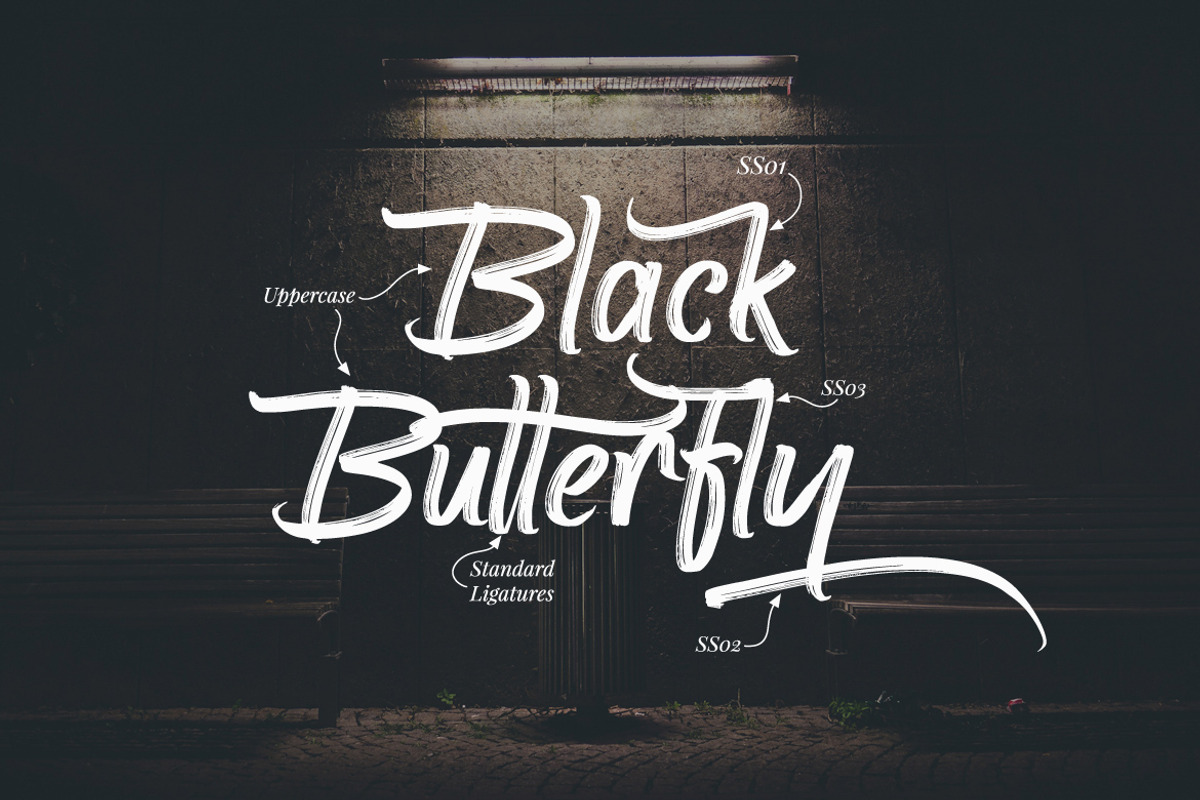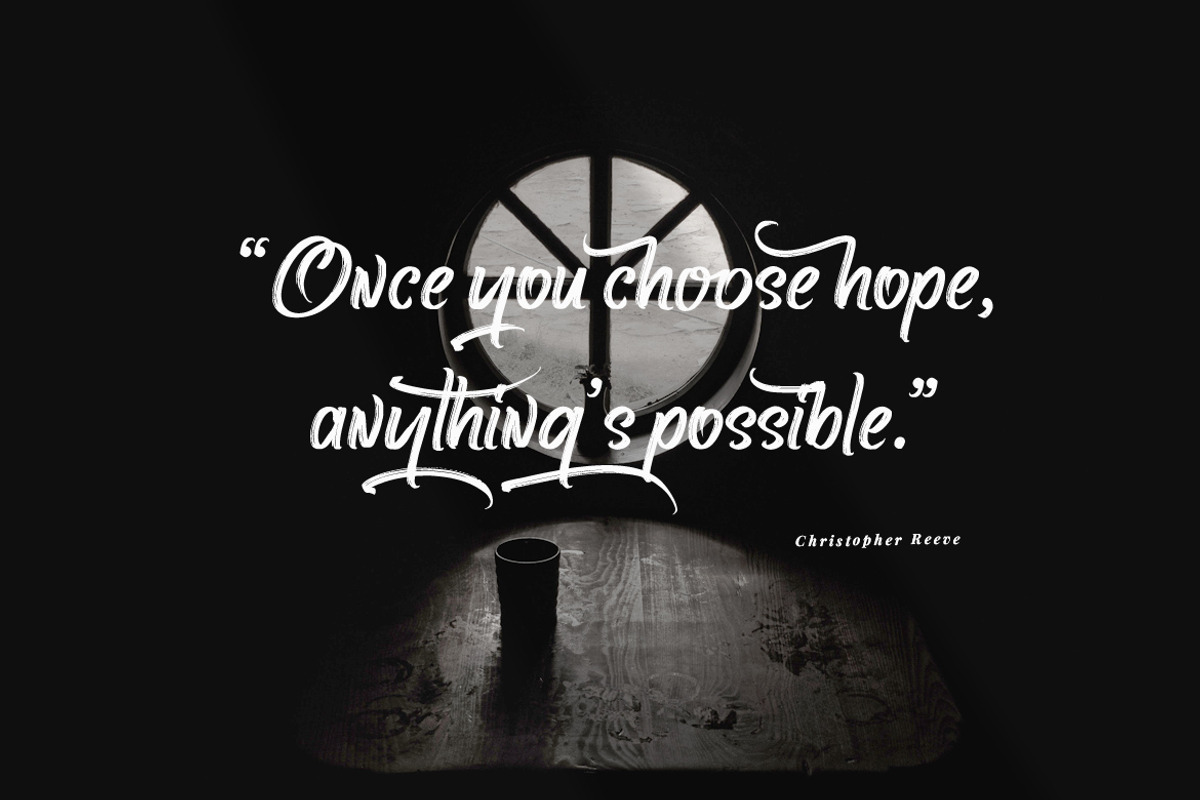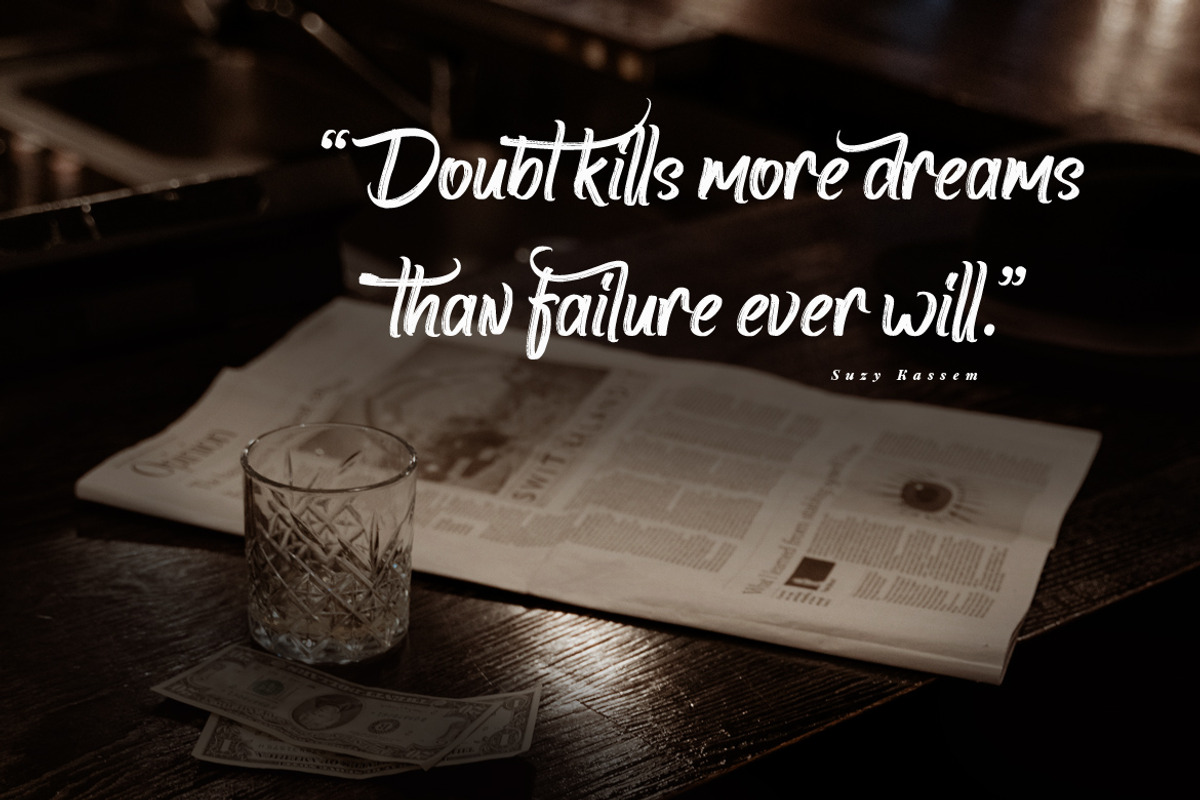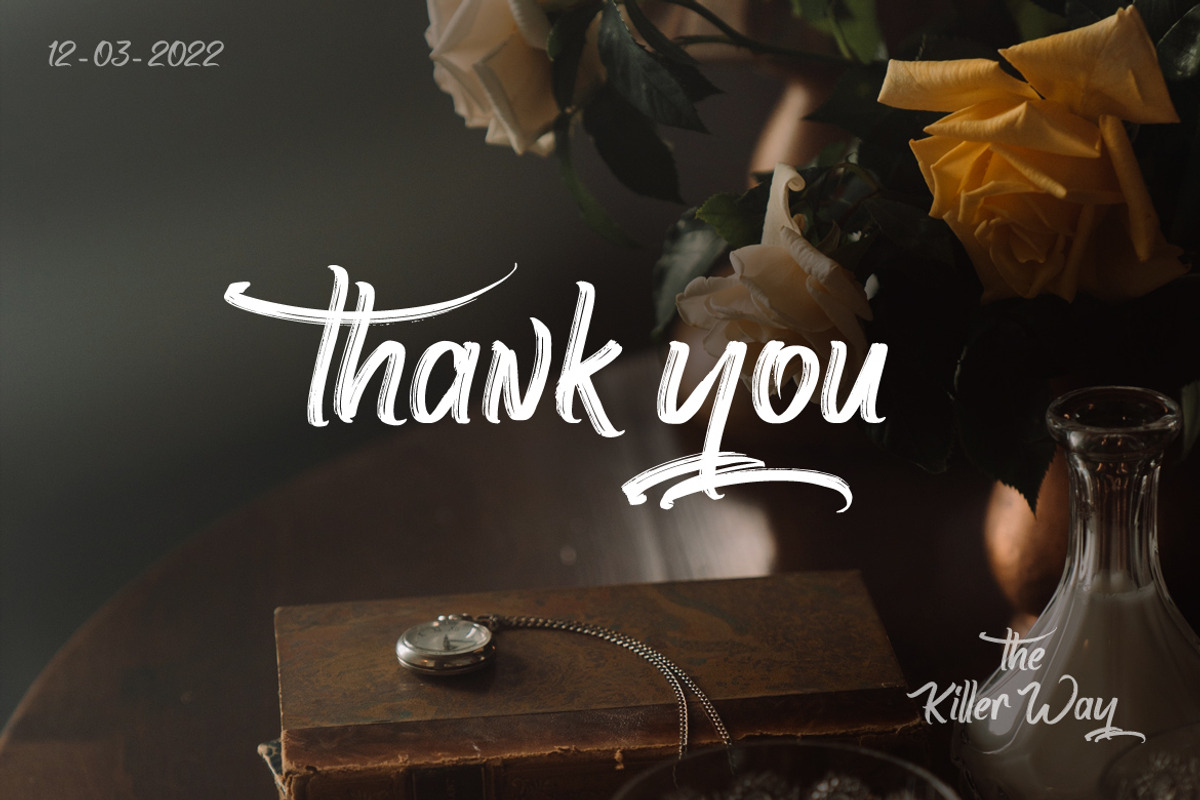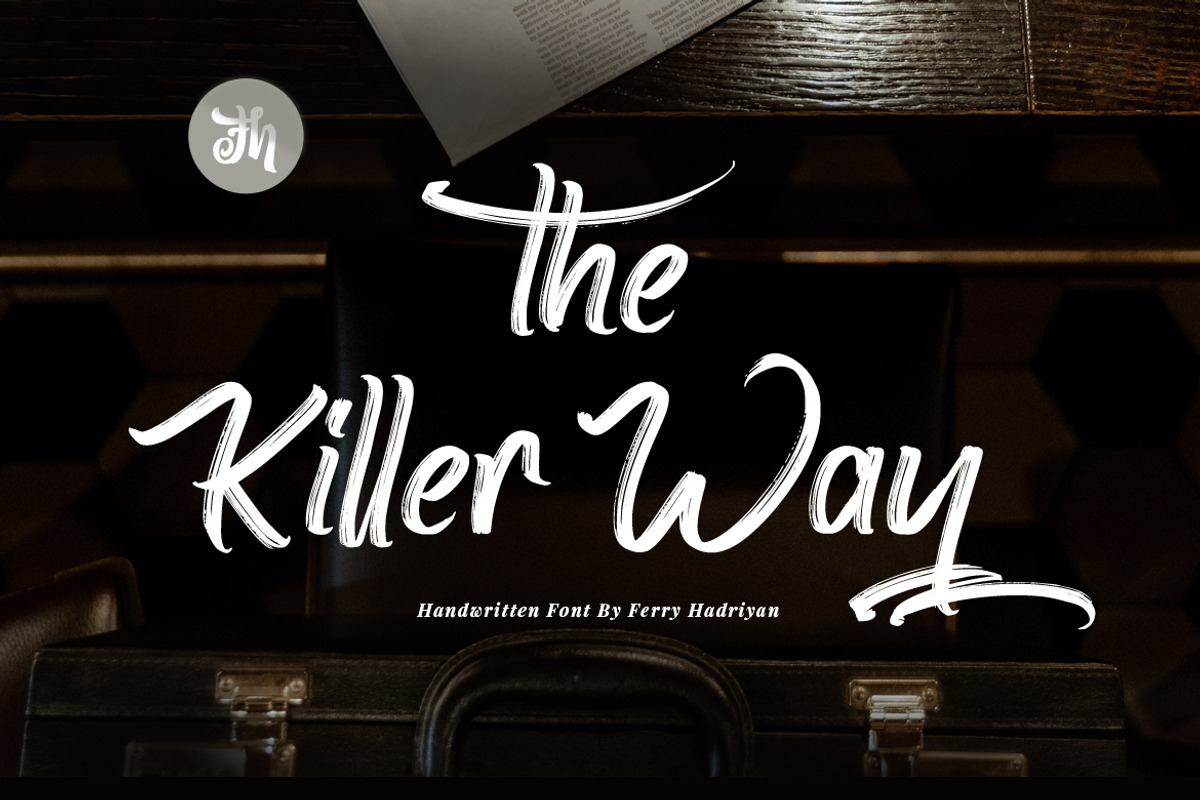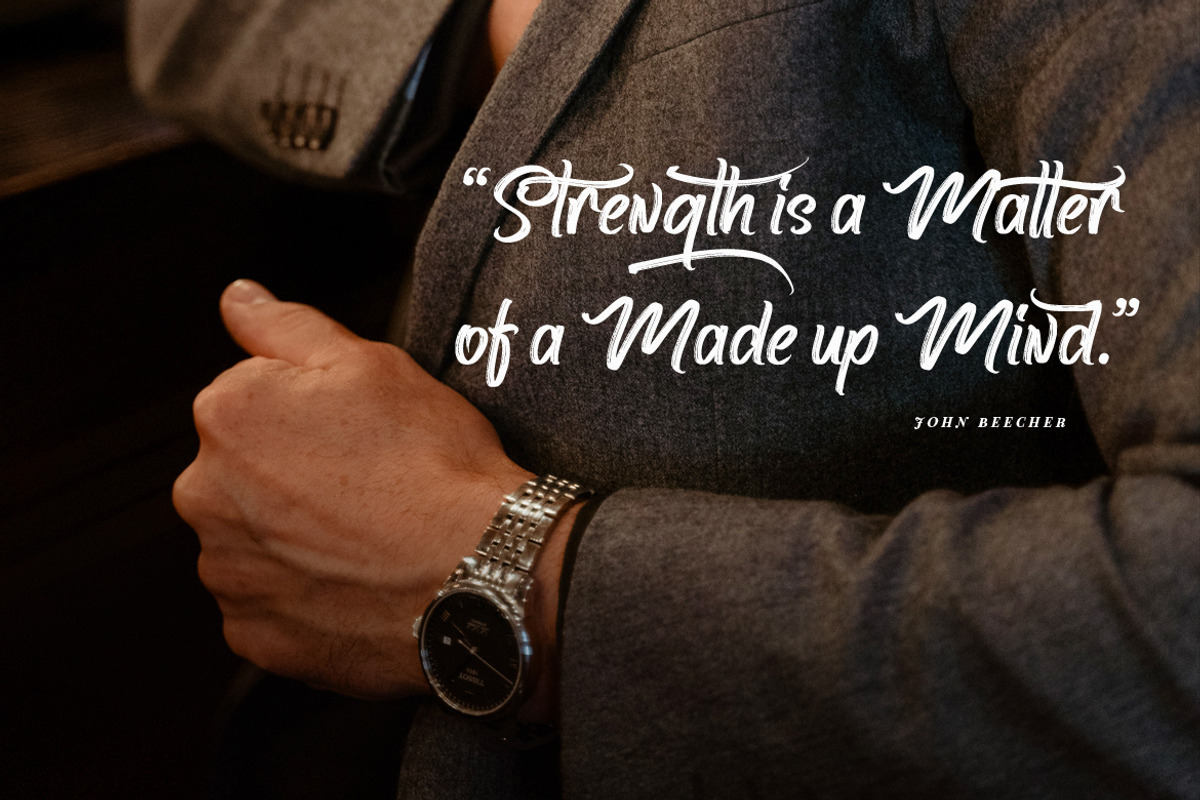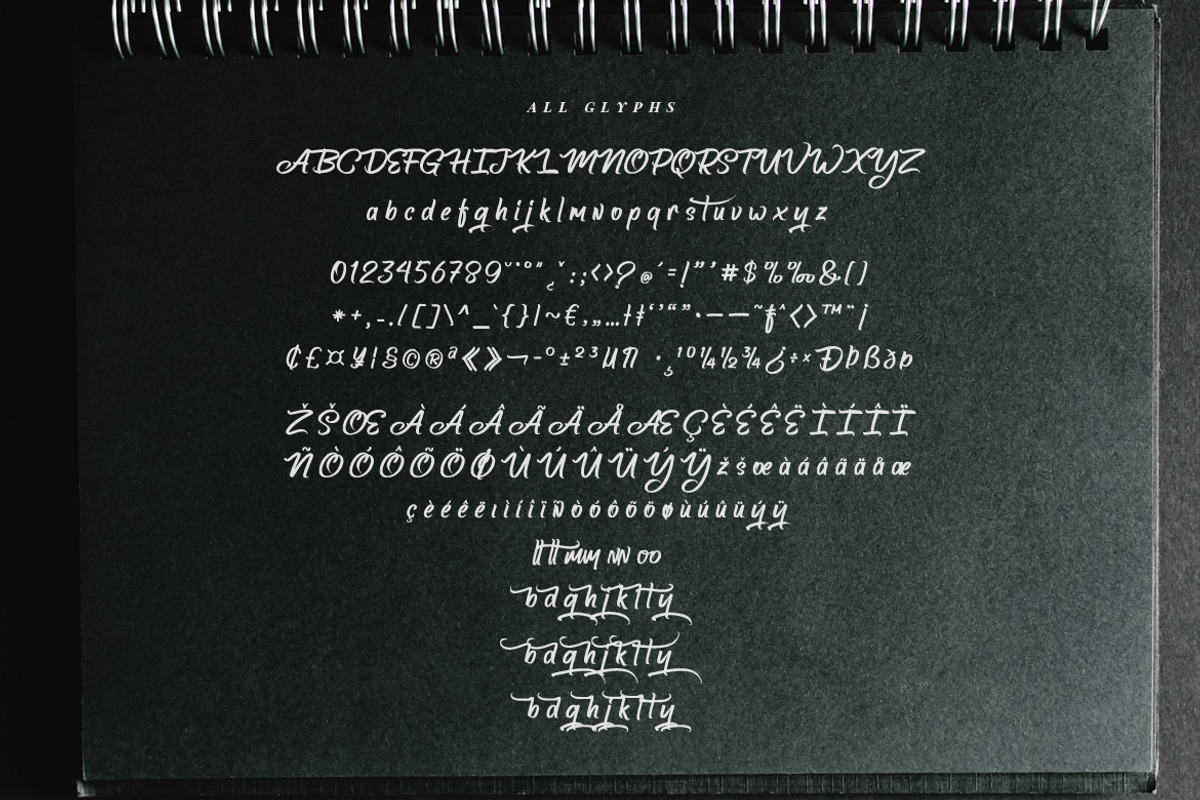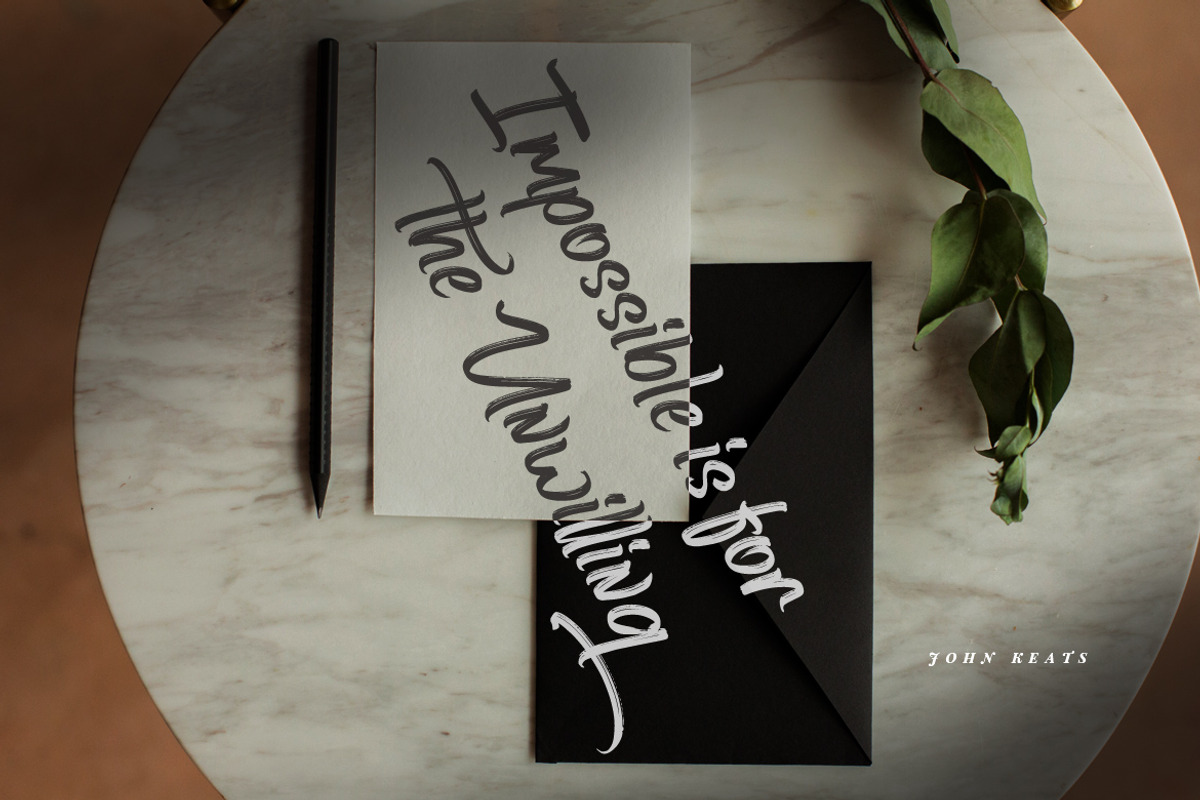
The Killer Way - Handwritten Font
The Killer Way is script font with handwritten vintage brush style, with OpenType feature include of the font. Suitable for design, element design, event, logo, and awesome work, etc...
All Standard Character, Symbol, Multilanguage, Ligature, Stylistic Set, and Swashes.
Unique style fonts